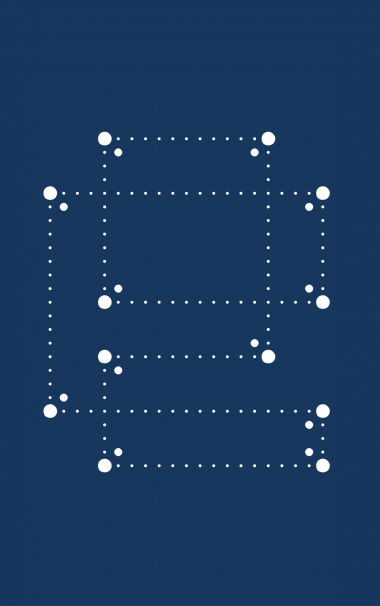
• i tried replacing all the square bricks with dots - thought it would make an interesting dot font so i cloned 'folded pixels' and made this. you can't really see the font in the preview box but i will post a sample to show it more clearly.